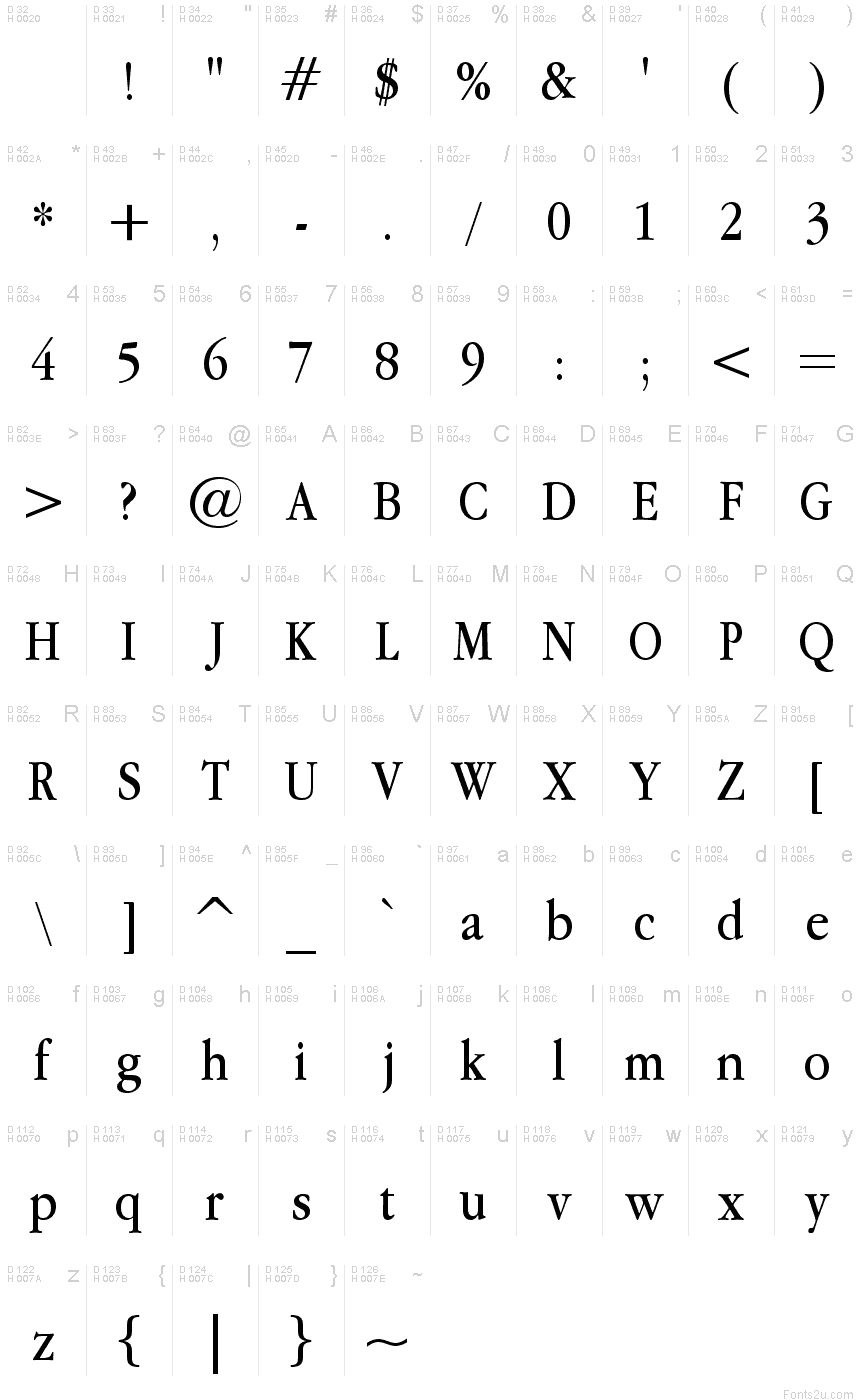
Apple Garamond
Apple Garamond font is a free serif typeface that blends bookish elegance with a quietly modern edge. Its letters are slim, neatly spaced, and slightly compact, giving text a refined, efficient feel without looking stiff. The strokes feel inky yet controlled, so headlines look polished and confident while still readable at smaller sizes.
Using Apple Garamond, you can give product packaging, editorial layouts, minimalist websites, tech brand identities, posters, and book covers a subtle sense of heritage with a modern twist. This free font shines when you let it breathe with generous margins and clean grids. For longer text or UI elements, pair Apple Garamond with a simple sans serif to handle dense copy while it carries the headlines and key highlights.